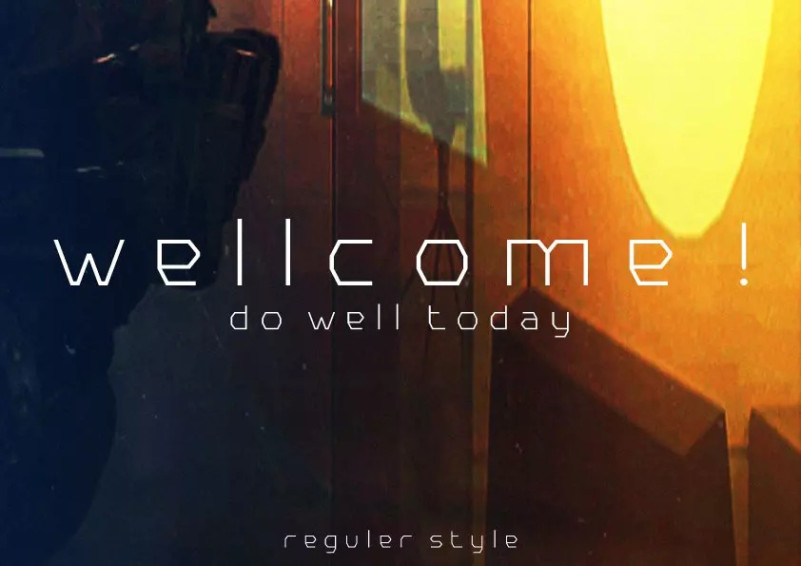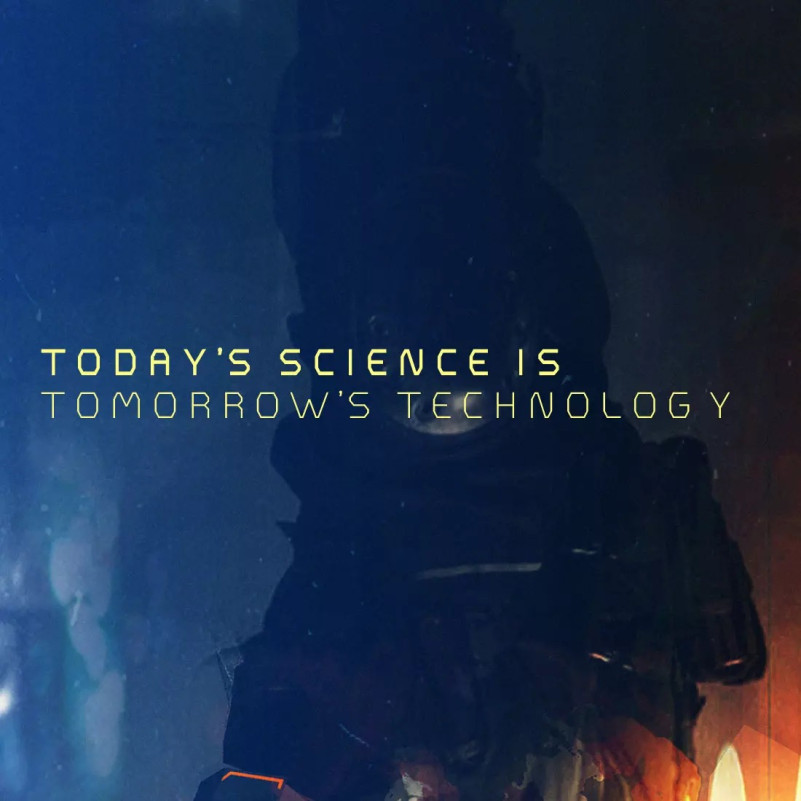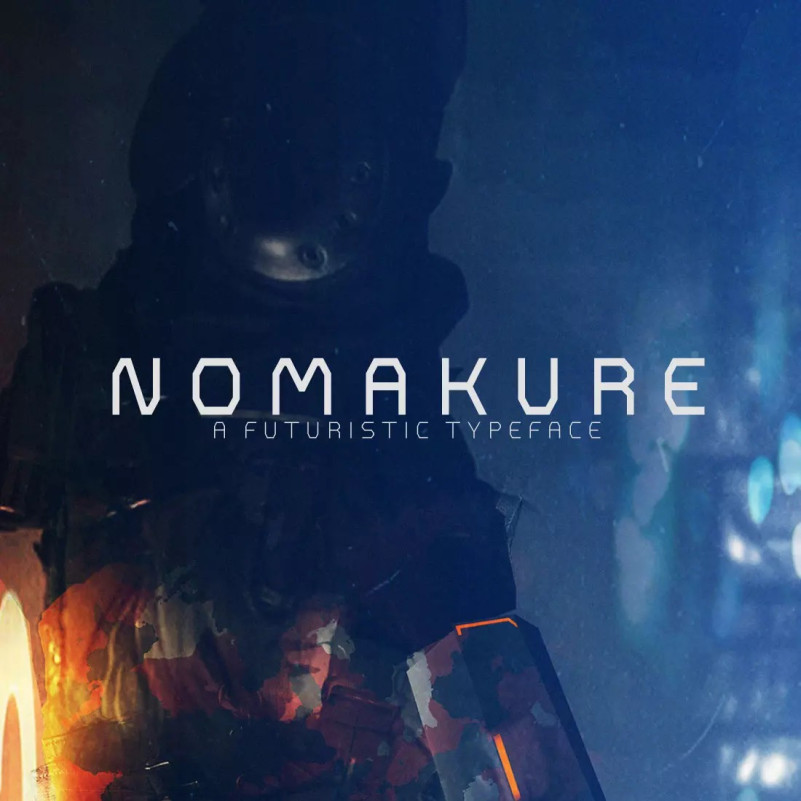
Nomakure Font
Nomakure Display Font, is a new digital art inspired font that is widely available on the internet. Made with additional elbows on each glyph to make it look more modern at every point of view. It consists of regular and bold styles which are very easy to use for design purposes such as website appearance, game appearance, book covers, product covers, and many more.